RAY FRENDEN’S TOP 10
Ray Frenden is a freelance illustrator and co-founder of LetterCult.
JONATHAN ZAWADA
MICHAH LIDBERG
MICHIEL VAN DER BORN
NARANI KANNAN
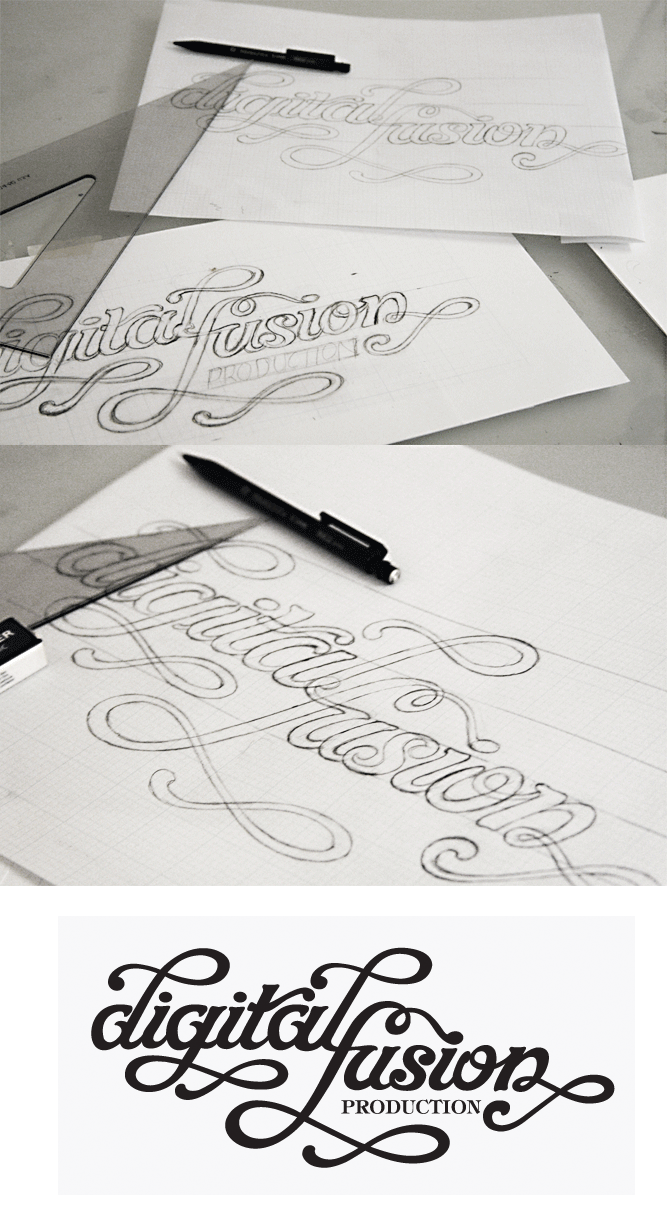
FIODOR SUMKIN
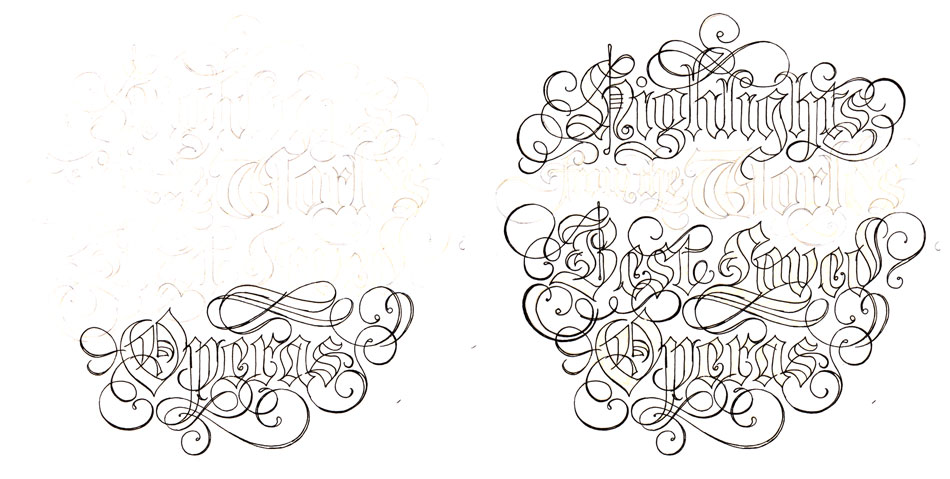
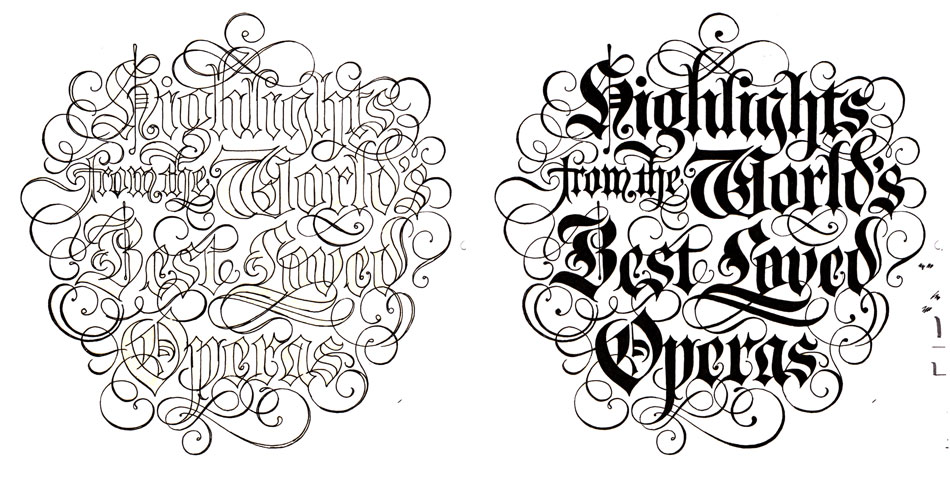
DEVONER GONZALEZ
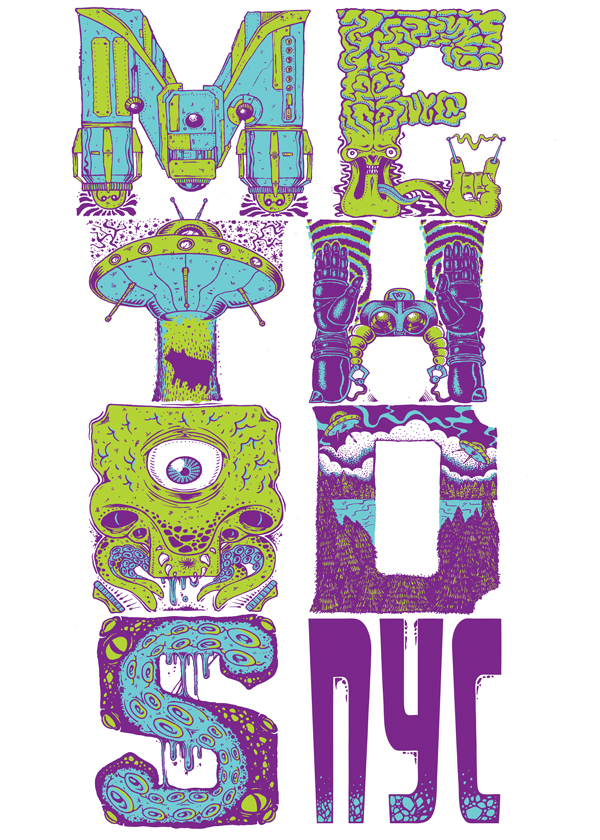
MICHIEL VAN DER BORN
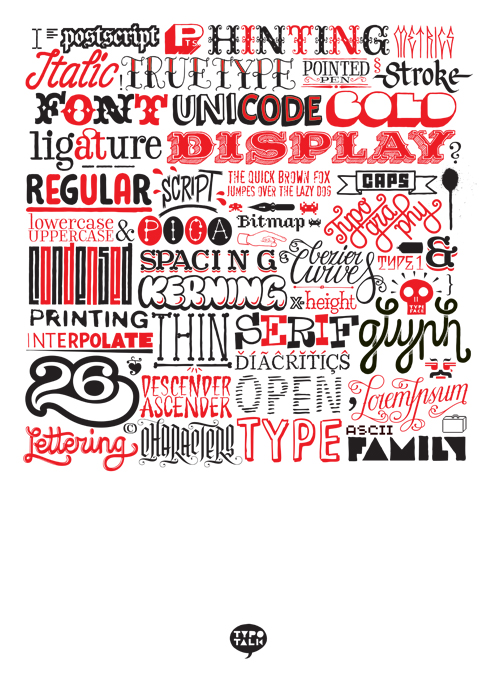
GEMMA O’BRIEN
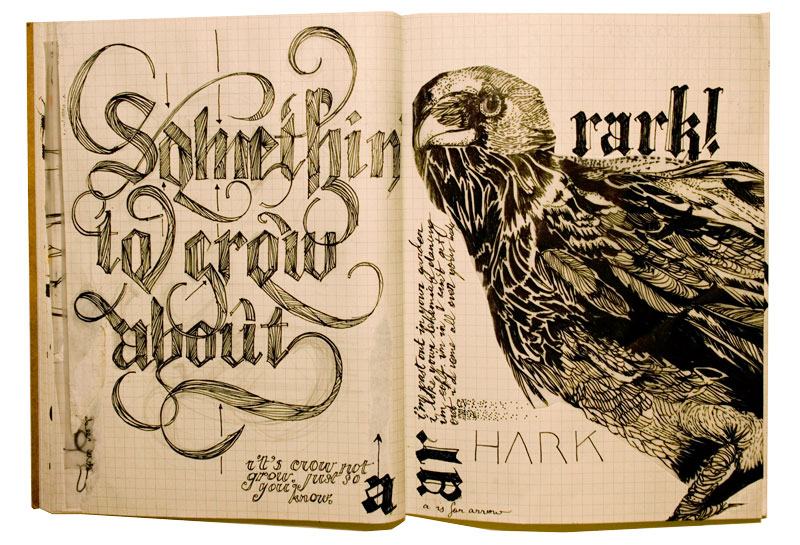
ESTHER AARTS
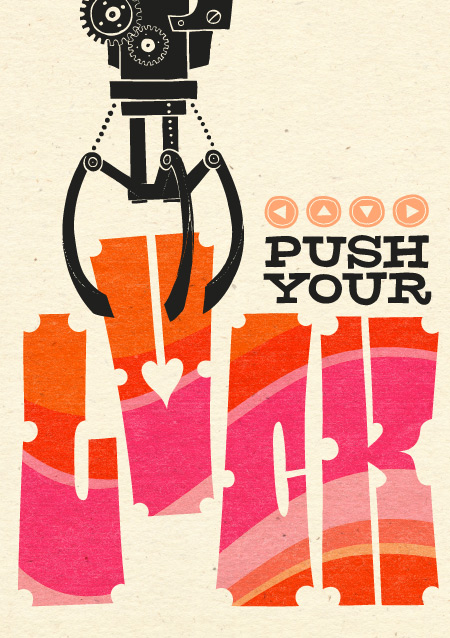
NATE WILLIAMS
COMMENT: “There were many great examples of letters. I gravitate toward the obviously hand-hewn, visible process, and illustrative elements.”